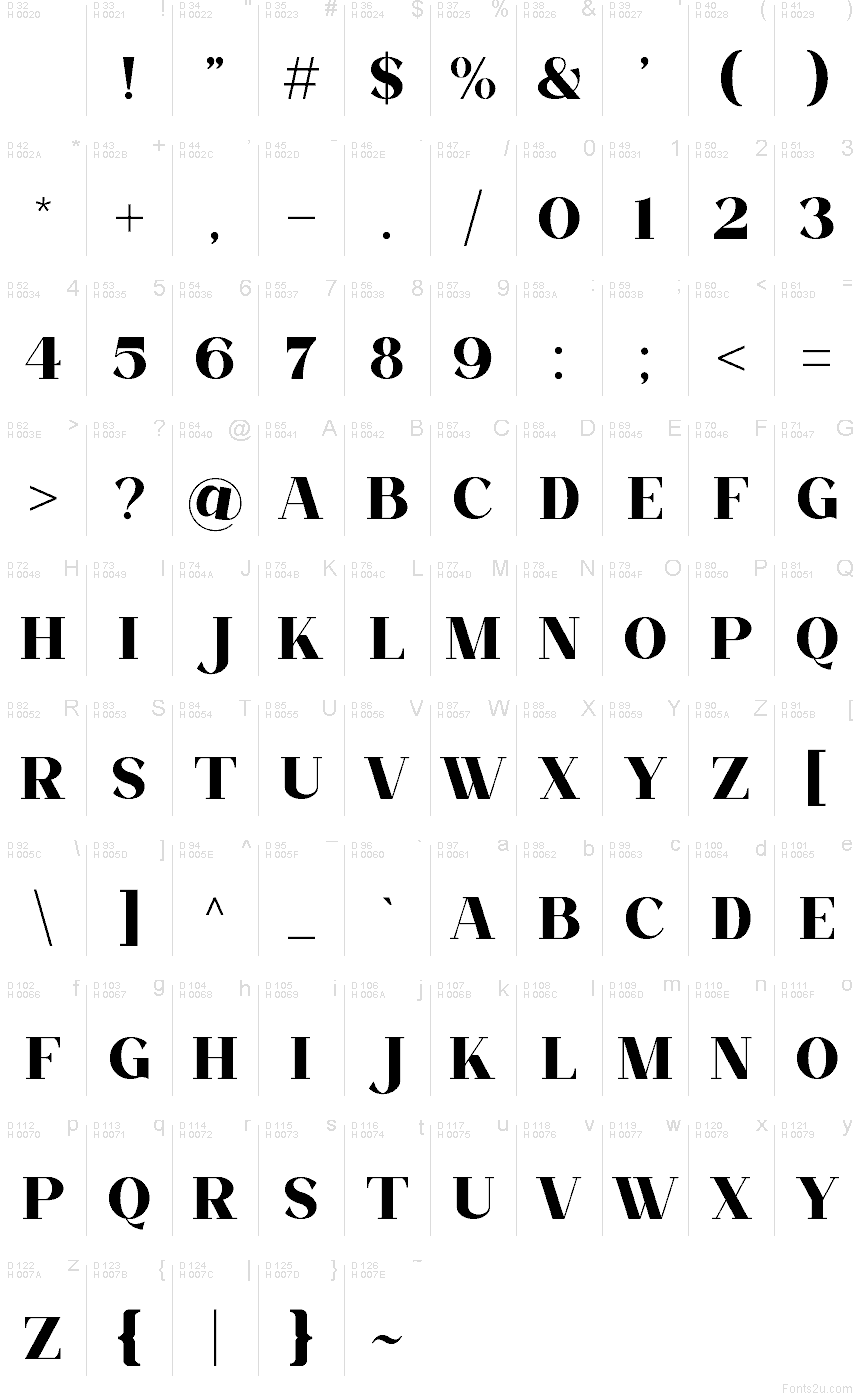
Mothe Nikiez
Mothe Nikiez, by Ermedia Studio, is a free high-contrast Didone serif font with monumental caps and an unmistakable fashion-editorial air. Its broad, commanding forms pair fine horizontal lines with heavy vertical strokes, creating a stark rhythm that feels both classical and sharply contemporary.
This free font belongs on fashion mastheads, luxury packaging, gallery posters, fragrance labels, and cultural campaign graphics. It also works well for short headlines, cover lines, title cards, or monograms, where the dramatic contrast and spacious proportions have room to make their point at generous sizes.